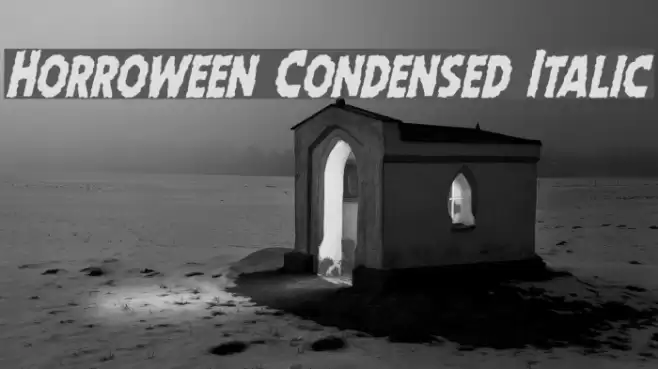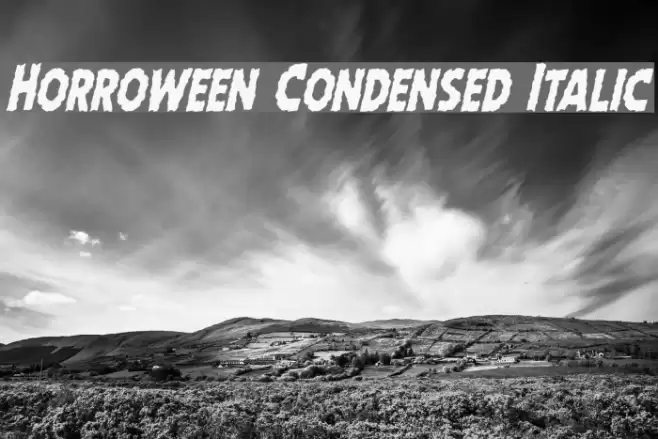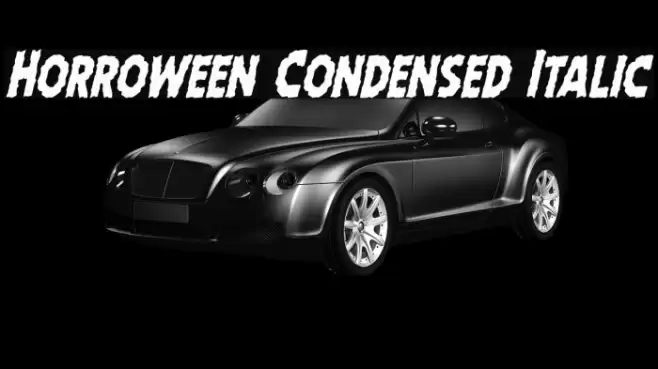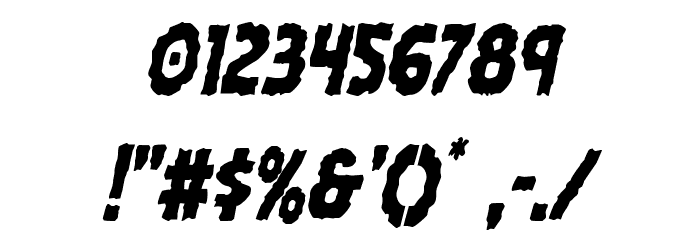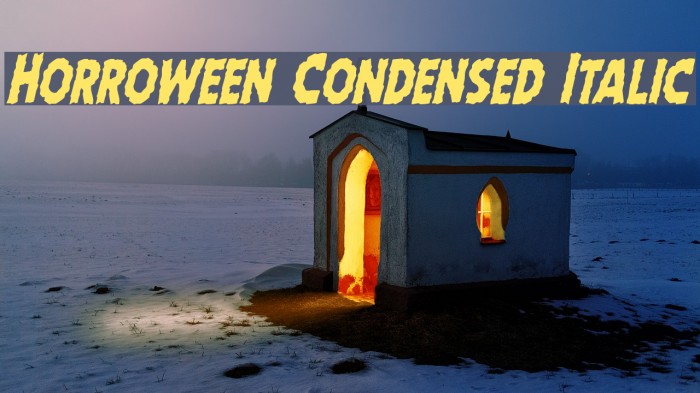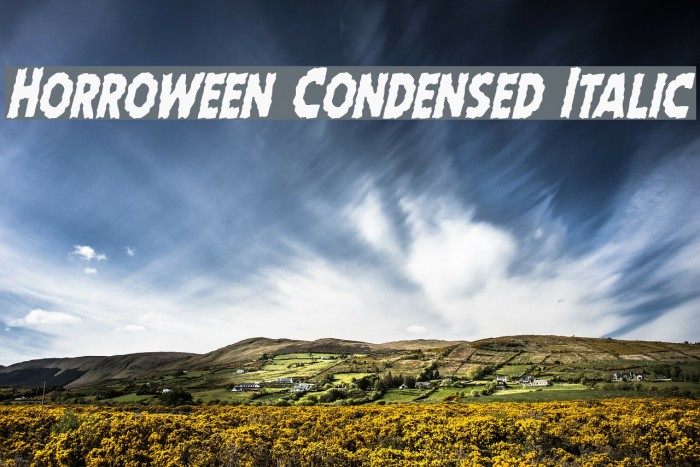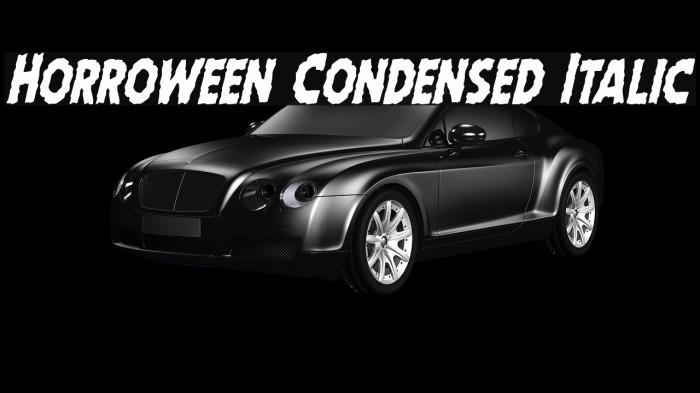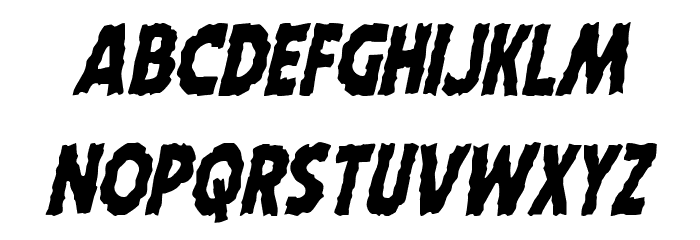
Horroween Condensed Italic
This font features a bold and jagged style, reminiscent of classic horror themes. The characters are condensed and italicized, giving a sense of urgency and movement. The rough edges and irregular shapes contribute to a spooky and unsettling appearance, making it ideal for Halloween-themed projects. The uppercase and lowercase letters maintain a consistent style, with numbers and special characters following the same eerie aesthetic. This font's unique design captures attention and evokes a sense of mystery and suspense.
A bold, jagged, and condensed italic font perfect for horror themes.
- Proposed Projects: Ideal for Halloween posters, horror movie titles, spooky event invitations, and themed merchandise.
- Width: Condensed
- Character Spacing: Tight
- Contrast: High
- Overall Style: Decorative